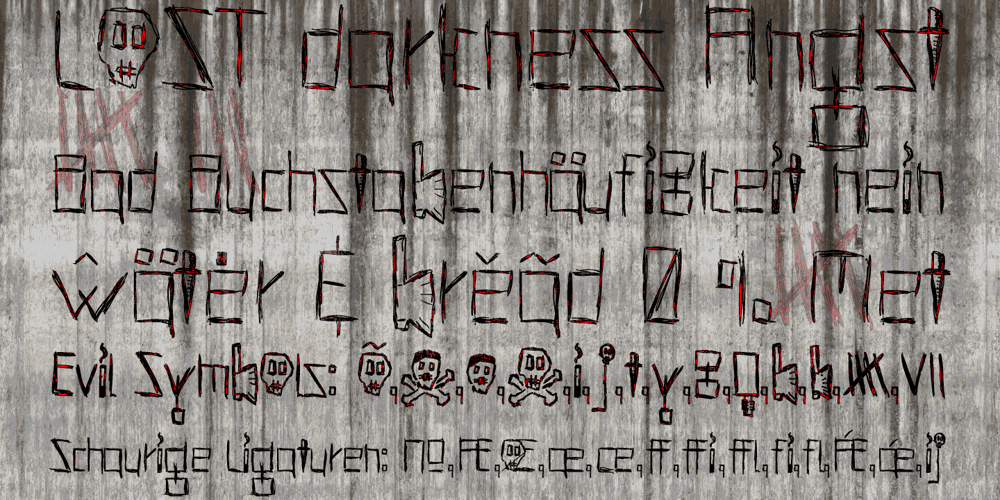
Hells Kittchen Devil God
Hells Kittchen Devil God Font Family was designed by Manuel Viergutz and published by TypoGraphicDesign. Hells Kittchen Devil God contains 1 styles and family package options. CHARACTERISTICS The font name is a pun on the Ger­man word “Kitt­chen” (English prison/jail) and the English “Hell’s Kit­chen”. The cha­rac­ter of the font looks as though the scum here — the guilty and inno­cent pri­soners carved/scratched their signs and mes­sa­ges at the pri­son walls of their jail cell. The cold, creepy and scratchy cha­rac­ter of the hand­writ­ten type­face is a very uni­que gloomy atmosphere. APPLICATION AREA The scary, dark, hor­ror, trash, hand­writ­ten script font “Hells Kitt­chen Devil God” with many symbols/dingbats would look creepy good at rusty dis­play size for head­lines. Maga­zi­nes or web­sites, movie pos­ters, music covers or webbanner. TECHNICAL SPECIFICATIONS Head­line Font / Dis­play Font / Trash Script “Hells Kitt­chen Devil God” Open­Type Font with 375 gly­phs — many symbols/dingbats, alter­na­tive let­ters and liga­tures (with accents &€) & 2 style (regu­lar, bold)